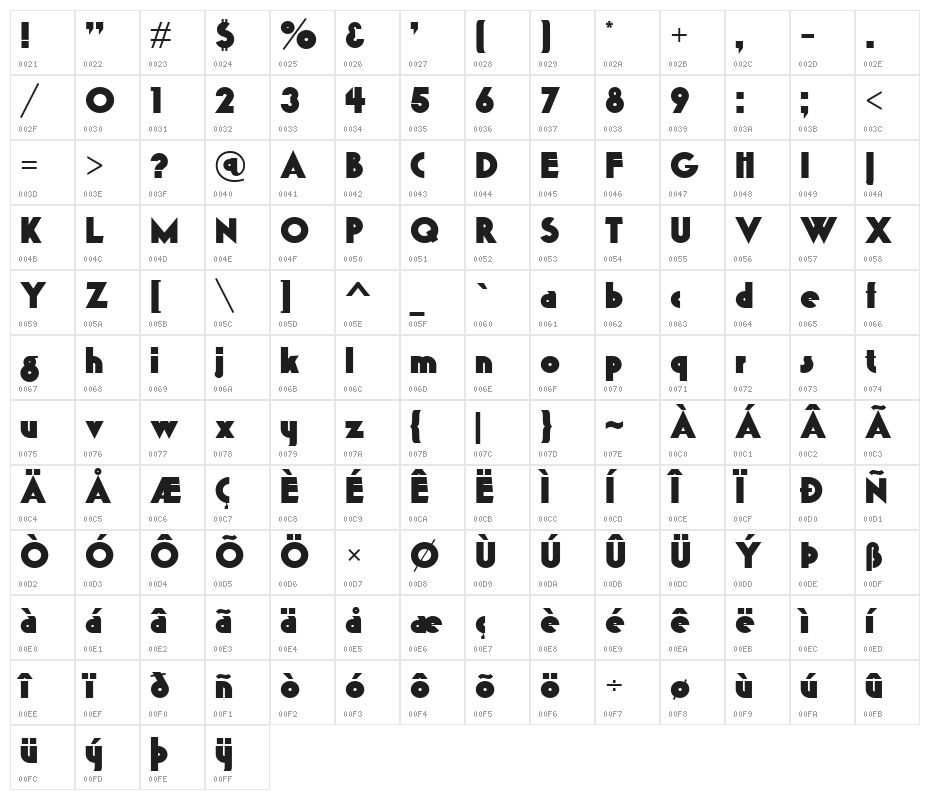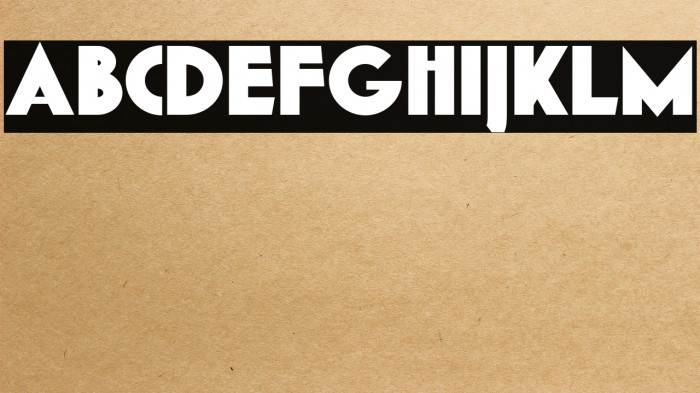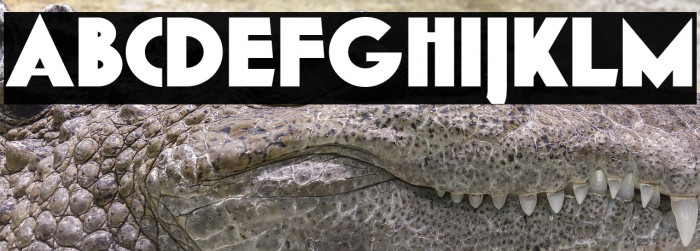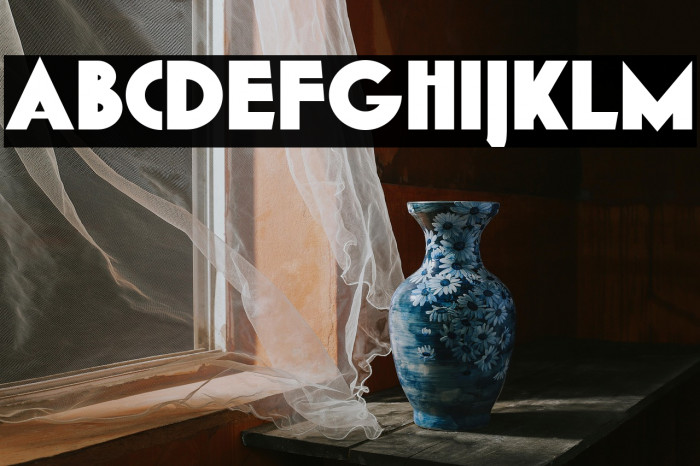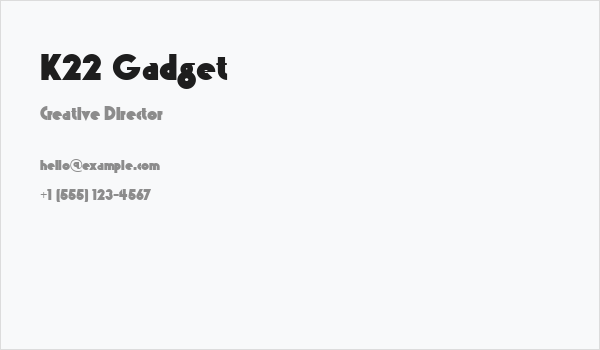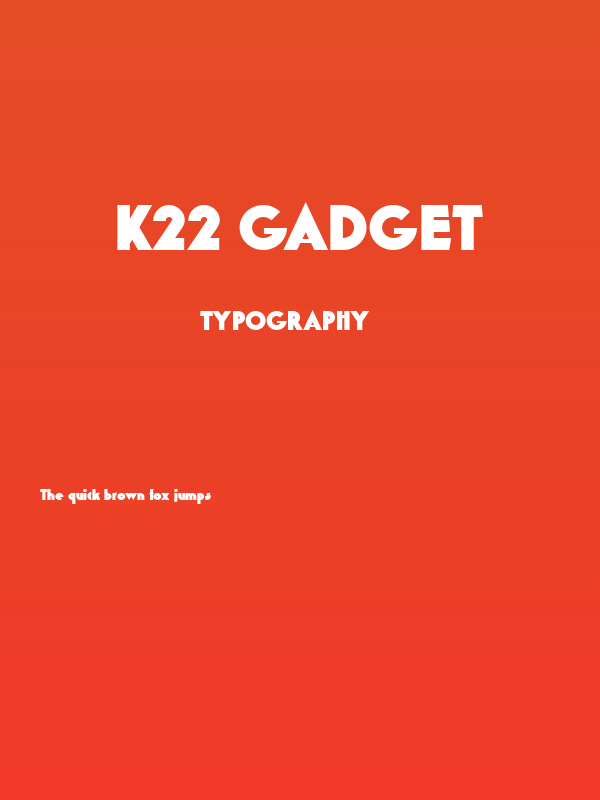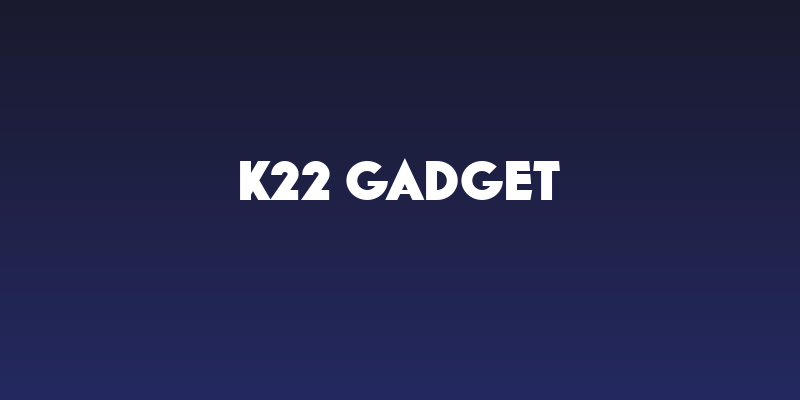
K22 Gadget Font
K22 Gadget Description
This font features bold, geometric shapes with a strong presence. The uppercase letters are characterized by sharp angles and clean lines, creating a sense of modernity and strength. The lowercase letters maintain a similar geometric style, with rounded edges that add a touch of softness to the overall design. The numerals are consistent with the bold and geometric theme, ensuring readability and uniformity. Special characters are designed to match the boldness of the alphabet, making them suitable for various design applications. This font's unique style makes it ideal for attention-grabbing headlines and logos.
| Proposed Projects | Ideal for branding, posters, headlines, and logo design. |